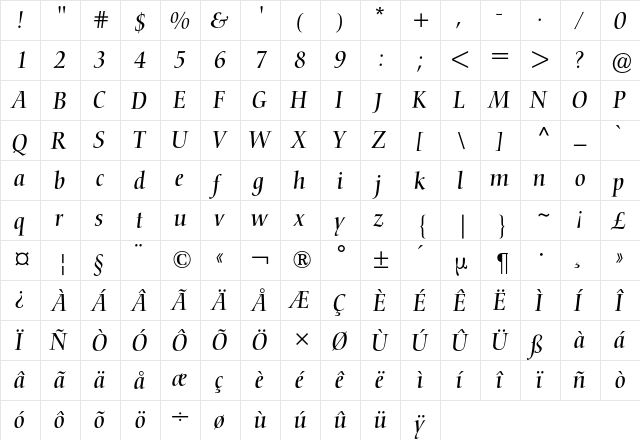
Nofret BQ Regular
Design Context for Nofret BQ Typeface
Nofret BQ takes a measured approach to typography — its balanced proportions and neutral character make it a reliable workhorse for both digital and print work.